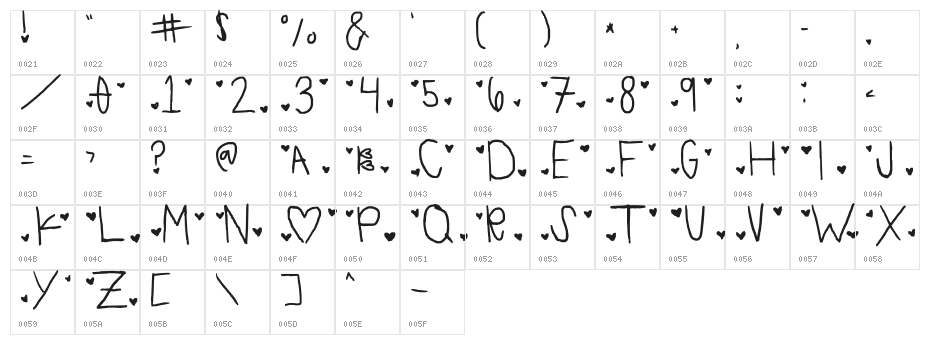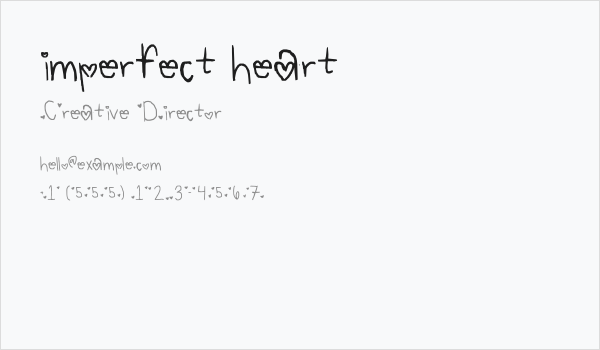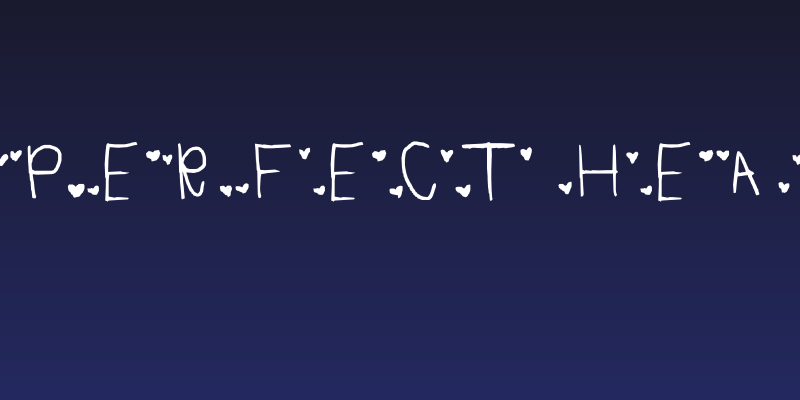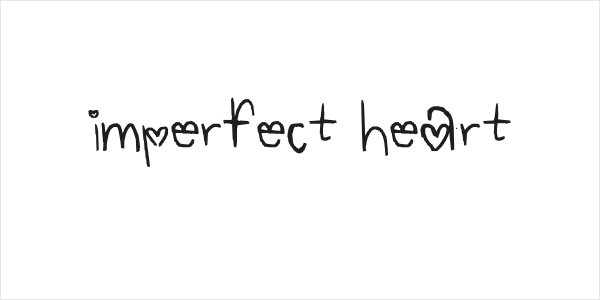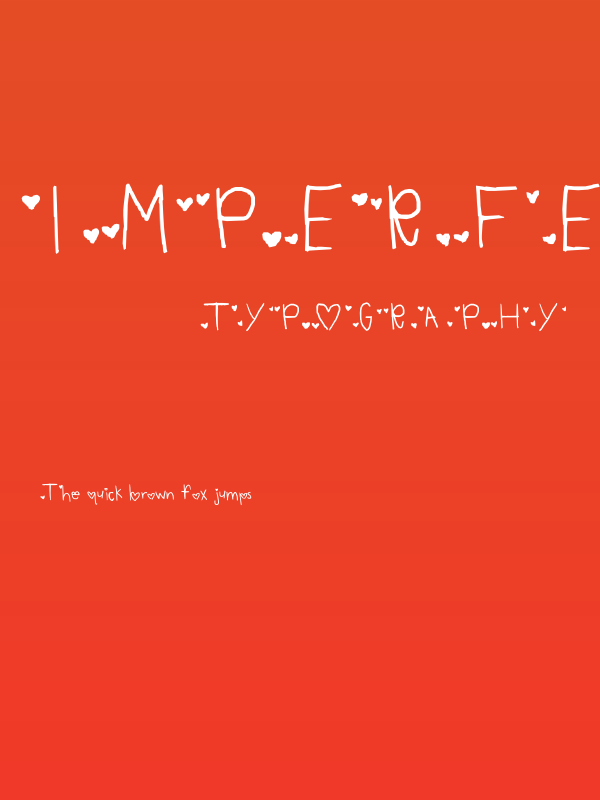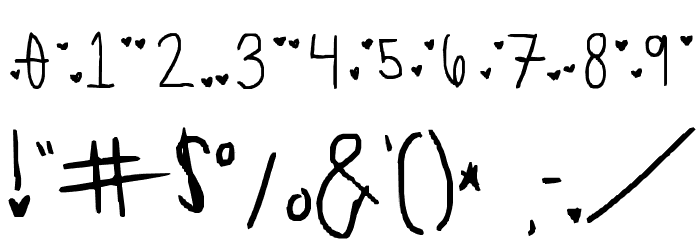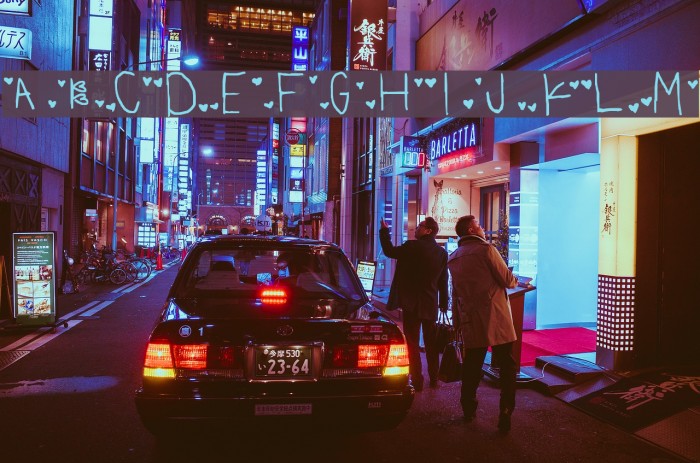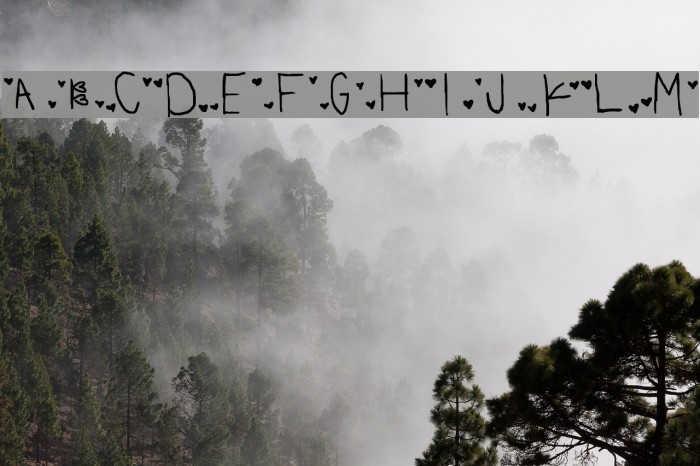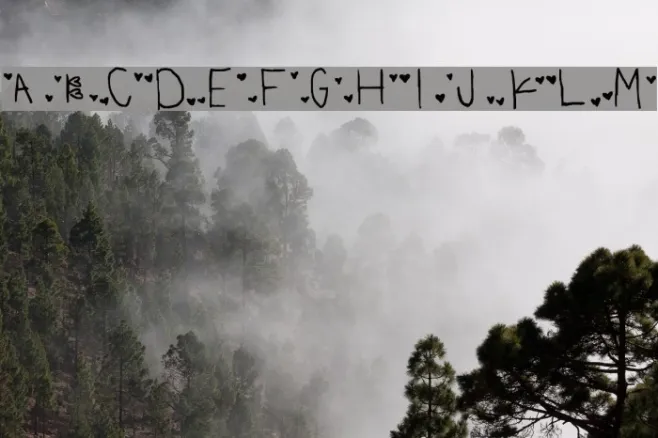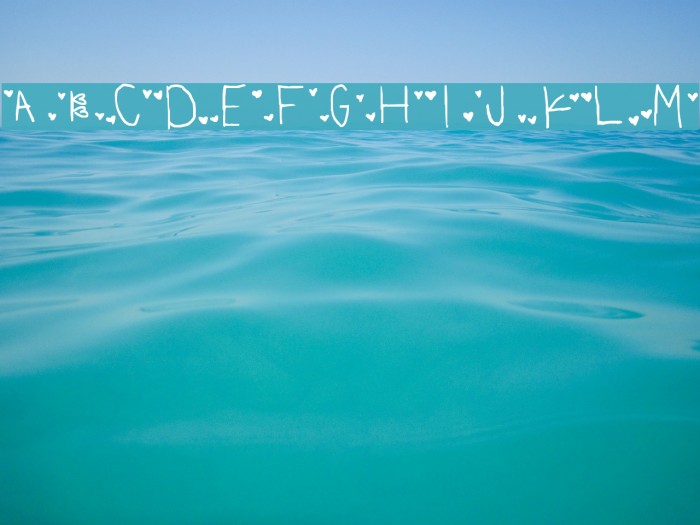
imperfect heart Font
imperfect heart Description
This playful and whimsical font features a unique design where each character is adorned with heart motifs, giving it a charming and romantic feel. The uppercase letters are slender and slightly irregular, adding a hand-drawn quality, while the lowercase letters are bolder with more pronounced heart shapes integrated into their forms. Numbers and special characters maintain this heart-centric theme, making the font cohesive and visually engaging. The overall style is casual and fun, perfect for projects that aim to convey warmth and affection.
| Proposed Projects | Ideal for Valentine's Day cards, wedding invitations, love-themed posters, and playful branding projects. |